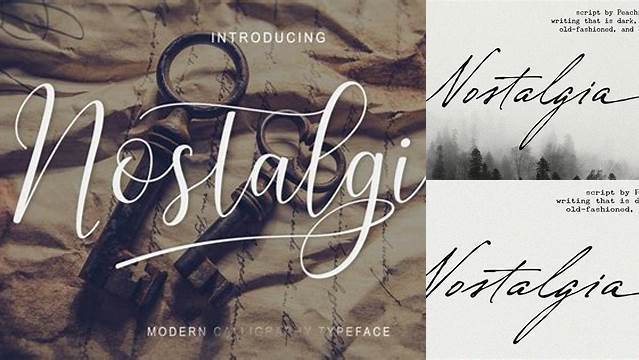
Are you guys on the hunt for the perfect font to infuse a touch of vintage charm into your designs? Look no further! Nostalgia vintage script fonts are an amazing way to bring that timeless, classic feel to your projects. Whether you're working on wedding invitations, branding materials, or website headers, a well-chosen script font can make all the difference. In this guide, we’ll dive deep into what makes a script font vintage, where you can find a nostalgia vintage script font free download, and how to effectively use these fonts in your designs. So, let’s get started and explore the beautiful world of vintage script fonts!
What Makes a Script Font Vintage?
To truly appreciate the nostalgia vintage script fonts, it's essential to understand what elements give them that distinct, old-world charm. These fonts often mimic the elegant, flowing handwriting styles of past eras, evoking a sense of history and craftsmanship. Several characteristics contribute to a font's vintage aesthetic.
First off, the strokes are a key element. Vintage script fonts frequently feature varying stroke thicknesses, where the lines gracefully transition from thick to thin. This variation is reminiscent of the natural strokes created by calligraphy pens, adding a touch of authenticity and human touch. Imagine the fluid, expressive lines of Spencerian or Copperplate scripts – that’s the kind of elegance we’re talking about.
Next up, the flourishes and swashes! These decorative additions extend from the letters, creating elegant loops and curves that add to the font's ornate appearance. Flourishes can be subtle or dramatic, but they always bring a sense of sophistication and flair. Think of the elaborate signatures on old documents or the decorative titles in vintage books – that’s the magic of flourishes at work.
The overall style also plays a massive role. Many vintage script fonts are inspired by specific historical styles, such as Art Deco, Victorian, or Mid-Century Modern. Each era has its own unique typographic trends, and fonts that capture these styles instantly transport us back in time. For instance, an Art Deco-inspired font might feature geometric shapes and bold lines, while a Victorian-era font might be more delicate and ornate. A touch of history can give your project character and depth, making it stand out with a unique story.
And let’s not forget the texture and imperfections. Some vintage script fonts incorporate subtle textures or irregularities to mimic the look of aged paper or hand-printed materials. These imperfections add a realistic touch, making the font feel more authentic and less sterile. Imagine the slight imperfections in old letterpress prints – that’s the kind of detail that can make a huge difference in the overall feel of your design. These details give your project an authentic vintage touch that feels both real and nostalgic.
Vintage script fonts often exude warmth and personality that modern sans-serif fonts can sometimes lack. They bring a human touch to designs, making them feel more inviting and personal. The elegance of these fonts can elevate any project, adding a layer of sophistication and charm. When you use a vintage script font, you’re not just choosing a typeface; you’re choosing a piece of history.
By understanding these elements, you can better appreciate the nuances of vintage script fonts and how they can enhance your design projects. Now, let's explore where you can find a nostalgia vintage script font free download to start incorporating this timeless style into your work.
The quest for the perfect nostalgia vintage script font free download can feel like searching for treasure. But don't worry, guys, there are several great resources where you can find high-quality fonts without breaking the bank. It’s important to tread carefully, though, to ensure you’re getting a legitimate font with the proper license for your intended use. Let's explore some of the best places to find these gems.
First off, font websites are your go-to resource. Websites like DaFont, FontSpace, and MyFonts offer a vast collection of fonts, including many vintage script styles. These sites have a range of free fonts available, often with different licensing options. When you’re browsing, make sure to check the license agreement, usually specified by the font designer, to ensure the font can be used for commercial projects if that’s your intention. Many designers offer fonts for personal use for free but require a commercial license for business applications.
Creative Market is another fantastic place to keep an eye on. While it’s primarily a marketplace for premium fonts and design assets, Creative Market often offers free goods each week. This frequently includes fonts, and you might just stumble upon a beautiful vintage script font. Signing up for their newsletter can keep you in the loop about these freebies, so you never miss out on a potential treasure.
Font bundles can also be an excellent way to snag a variety of fonts at a lower price. Websites like Humble Bundle and Envato Elements sometimes offer font bundles that include vintage script fonts. While these bundles usually come with a cost, they are significantly cheaper than buying each font individually. Keep an eye out for special promotions and limited-time offers, which can make these bundles even more appealing.
Whether you're designing wedding invitations, branding materials, packaging, or web layouts, a well-chosen vintage script font can elevate your designs and create a lasting impression. So, guys, go ahead and explore the world of vintage script fonts – you might just find the perfect typeface to bring your creative vision to life. With careful selection and thoughtful application, these fonts can help you craft designs that are both timeless and beautiful, imbued with the charm and elegance of a bygone era. Happy designing!